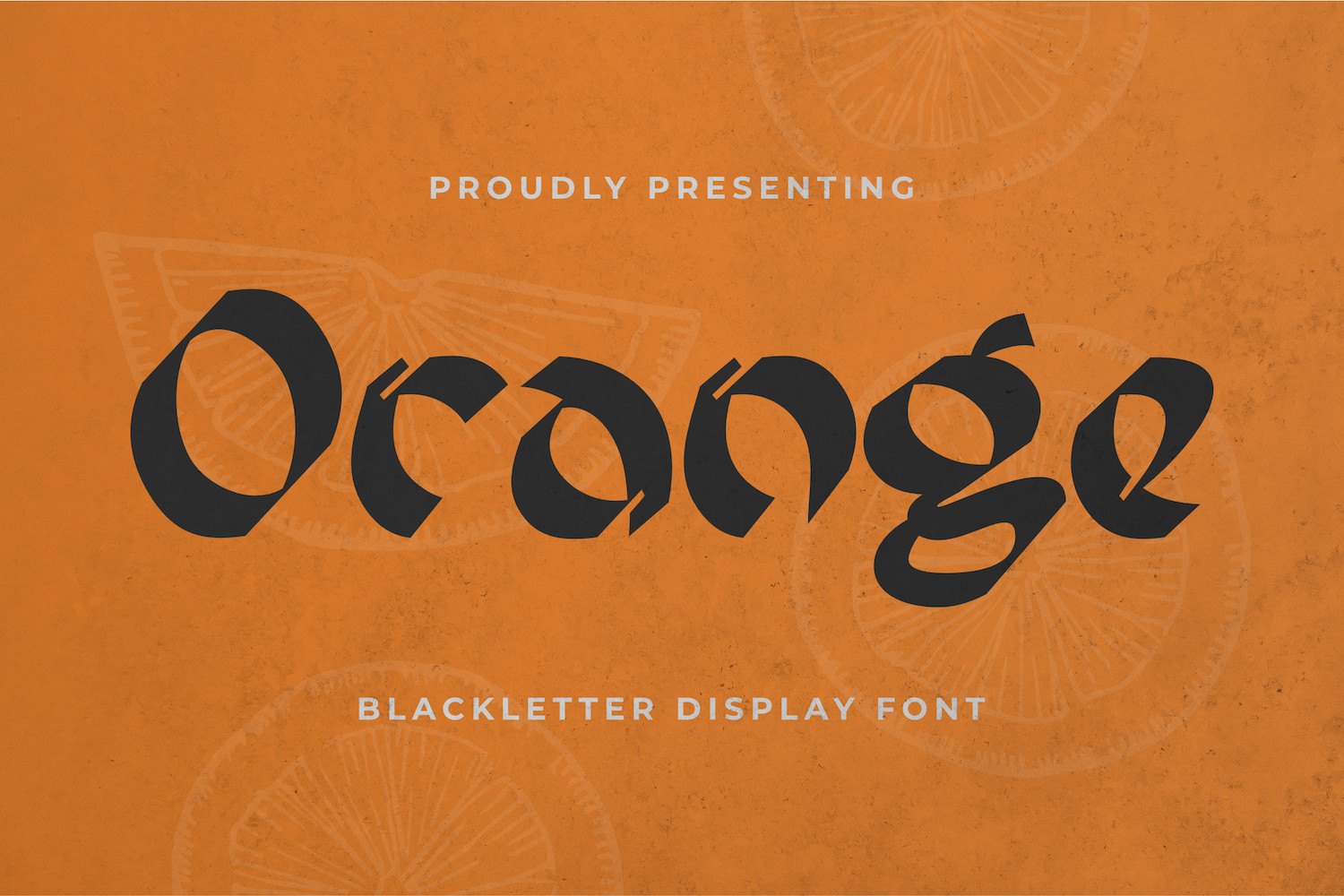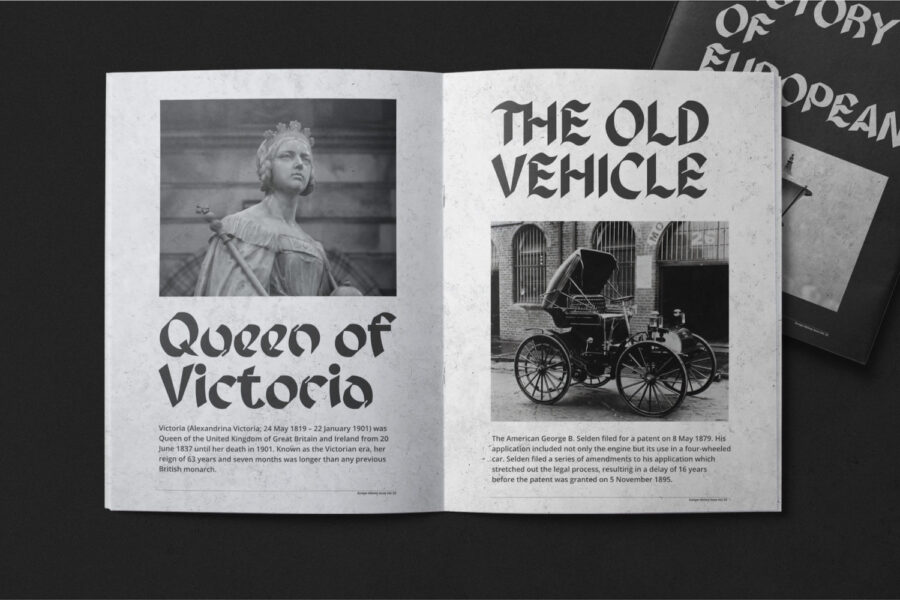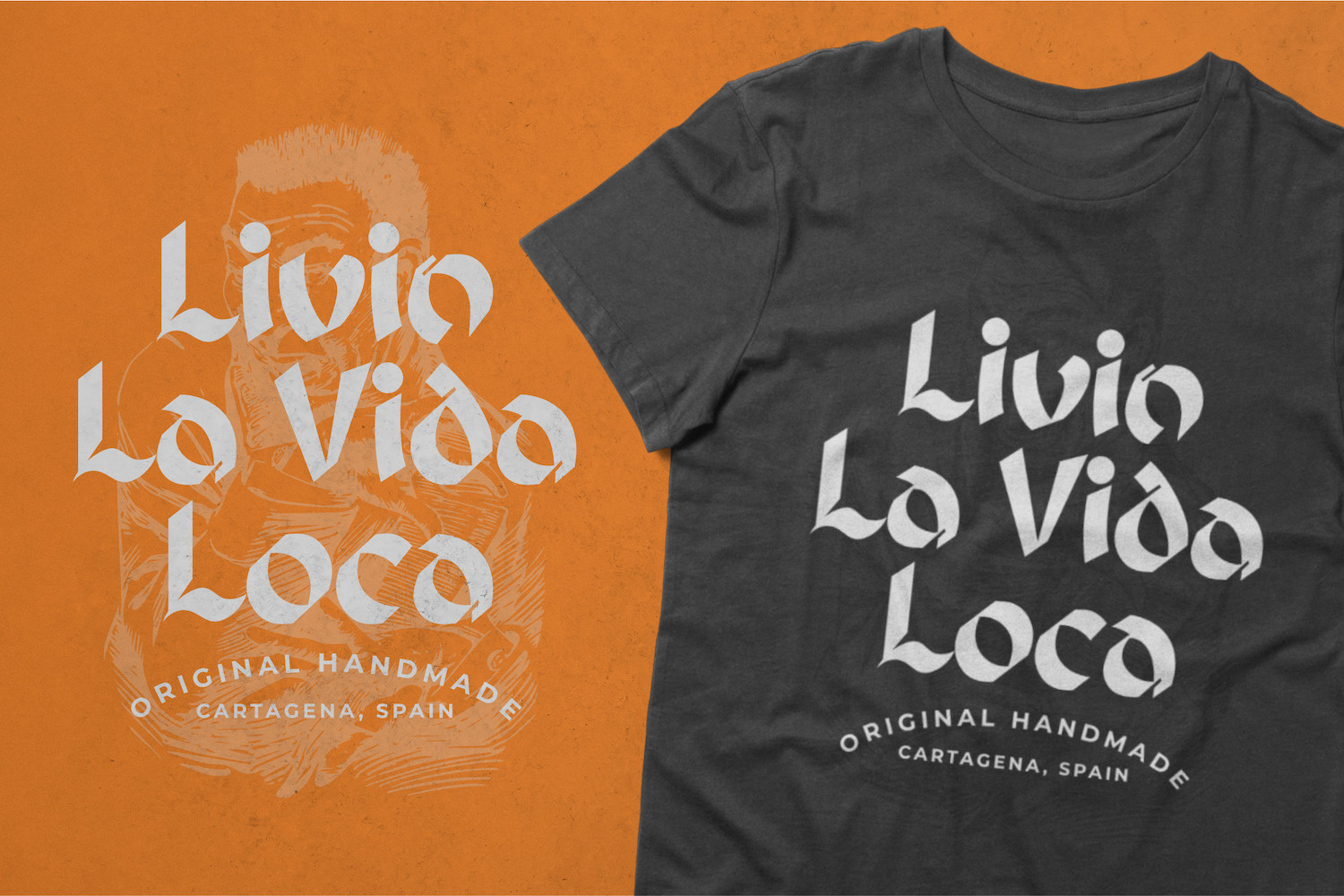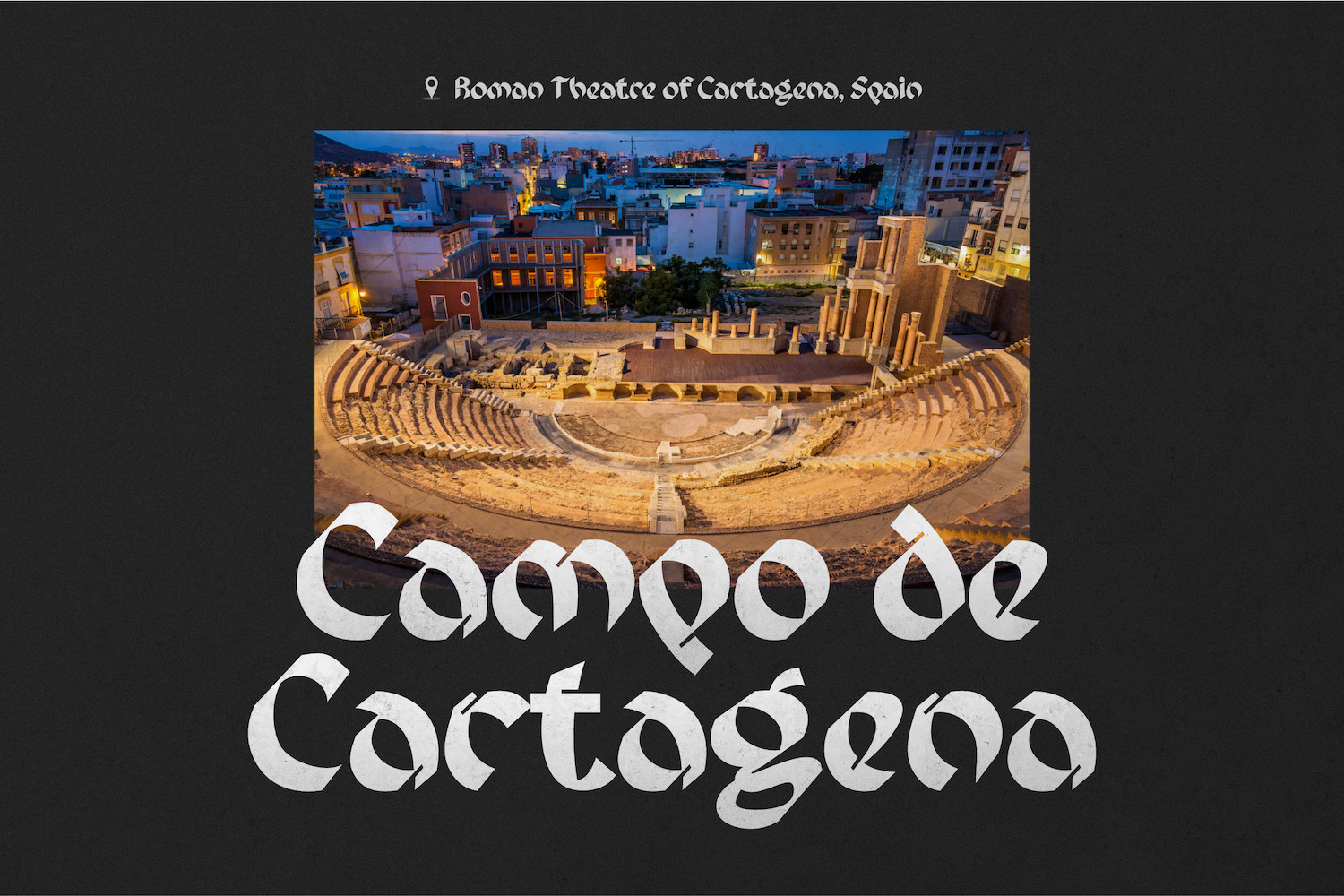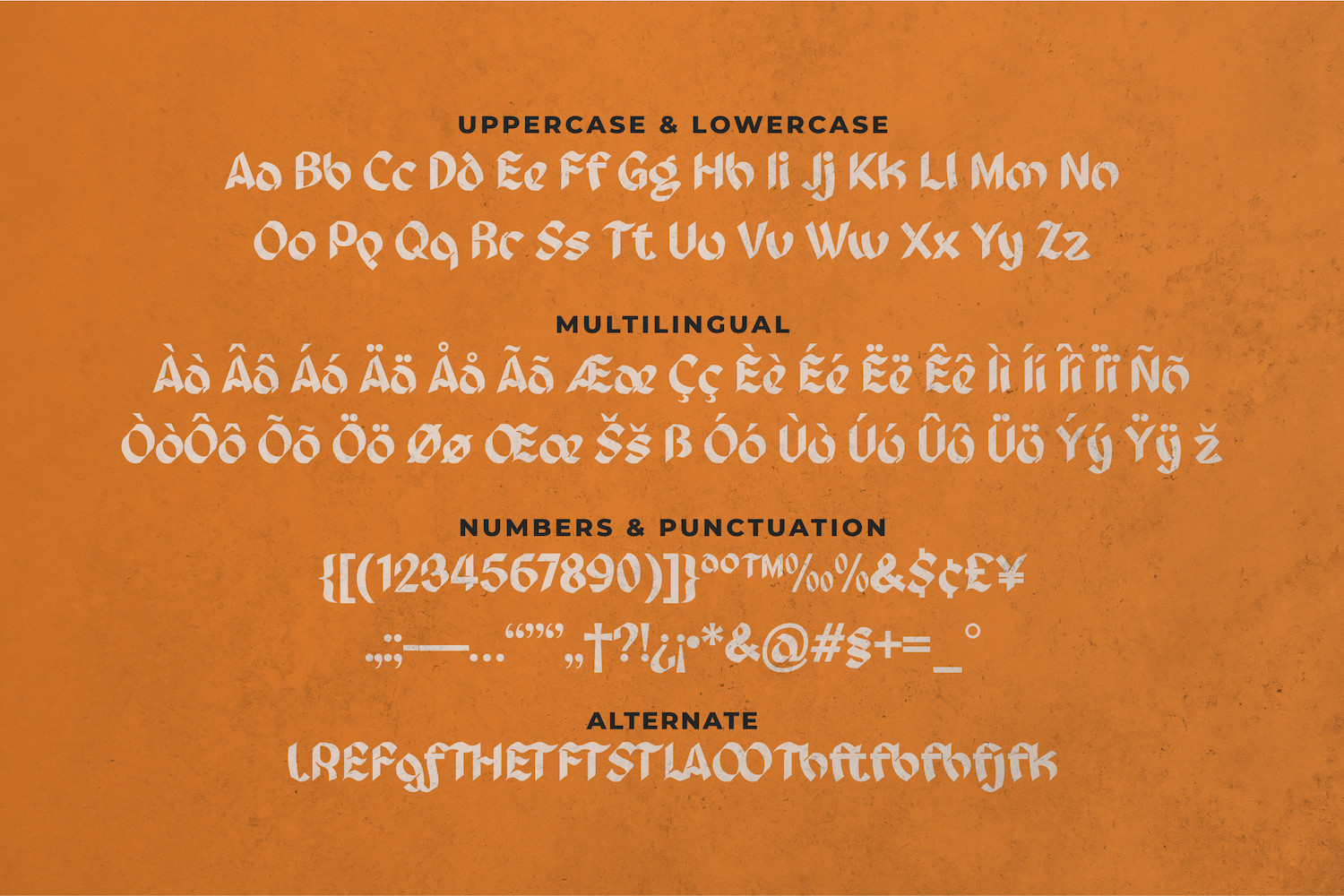
Orange
Introducing Orange, a bold and expressive Blackletter display font with a fresh modern twist. Its unique curves, sharp angles, and distinctive strokes make it stand out from traditional Gothic fonts, blending old-world charm with contemporary flair. Designed to evoke a sense of history while remaining bold and approachable, Orange is perfect for branding, packaging, apparel, and editorial designs seeking a strong, artistic voice.
Equipped with uppercase, lowercase, multilingual support, alternate characters, and a full set of punctuation and numerals, Orange offers excellent flexibility for creative typography. Whether used in vintage-themed layouts, streetwear designs, or bold poster headlines, this font delivers a dynamic visual presence that grabs attention and leaves a lasting impression.